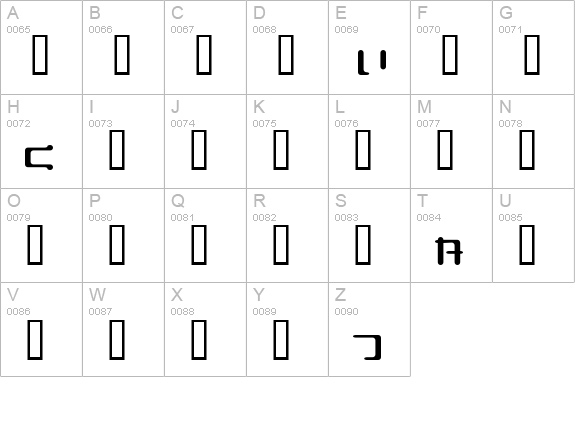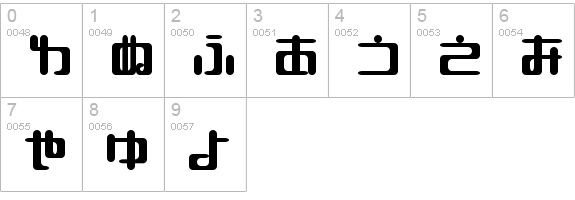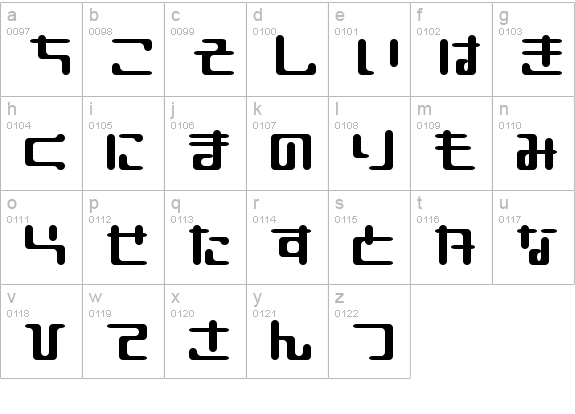
I2Hinano Font Details
I2Hinano is a beautifully crafted font that effortlessly combines elegance and simplicity. It exudes a sense of modernity and sophistication, making it perfect for a wide range of design projects. With its clean lines and smooth curves, I2Hinano captures attention and adds a touch of refinement to any text. This font offers a unique blend of versatility and legibility, making it suitable for both headings and body text. Whether you're designing a logo, creating a website, or designing a poster, I2Hinano will ensure that your text stands out and leaves a lasting impression. One of the best things about I2Hinano is that it is available for free. That's right, this incredible font can be downloaded at no cost from FontsMarket.com. This means that you can enhance your designs with a high-quality, professional font without having to spend a dime. Downloading I2Hinano is quick and easy. Simply visit FontsMarket.com, search for I2Hinano, and click on the download button. In just a few moments, you'll have this exceptional font ready to use in your design projects. So why wait? Experience the elegance and versatility of I2Hinano today, and take your designs to the next level. Download this remarkable font for free at FontsMarket.com and unlock a world of possibilities for your creative endeavors.